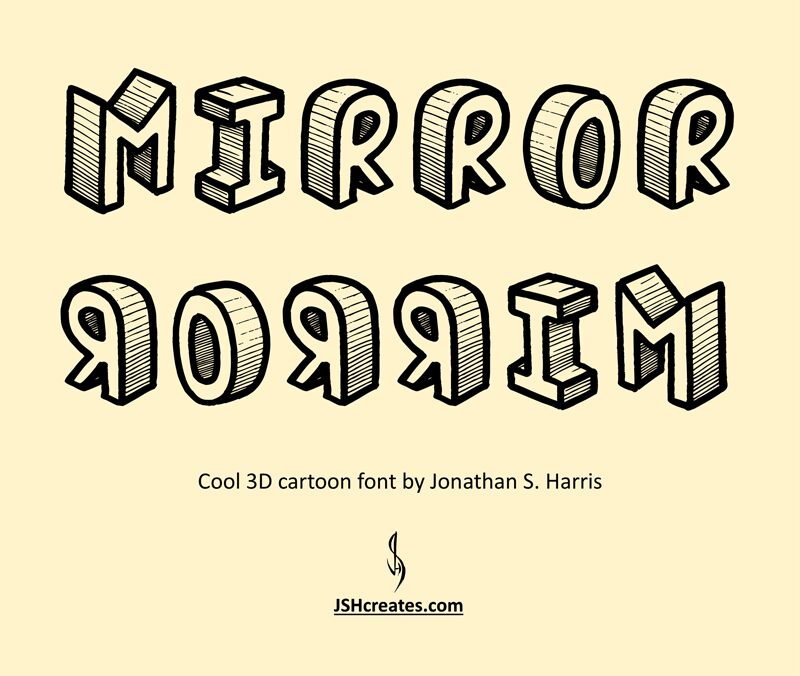
Introducing Mirror Mirror, a bold and playful display font designed by Jonathan S Harris. This 3D cartoon font is perfect for projects that require a touch of whimsy and fun, such as children's books, party invitations, advertising campaigns, and more. With its bold weight and unique style, Mirror Mirror will make your designs pop off the page and leave a lasting impression on your audience. So why settle for boring fonts when you can add some magic to your next project with Mirror Mirror?